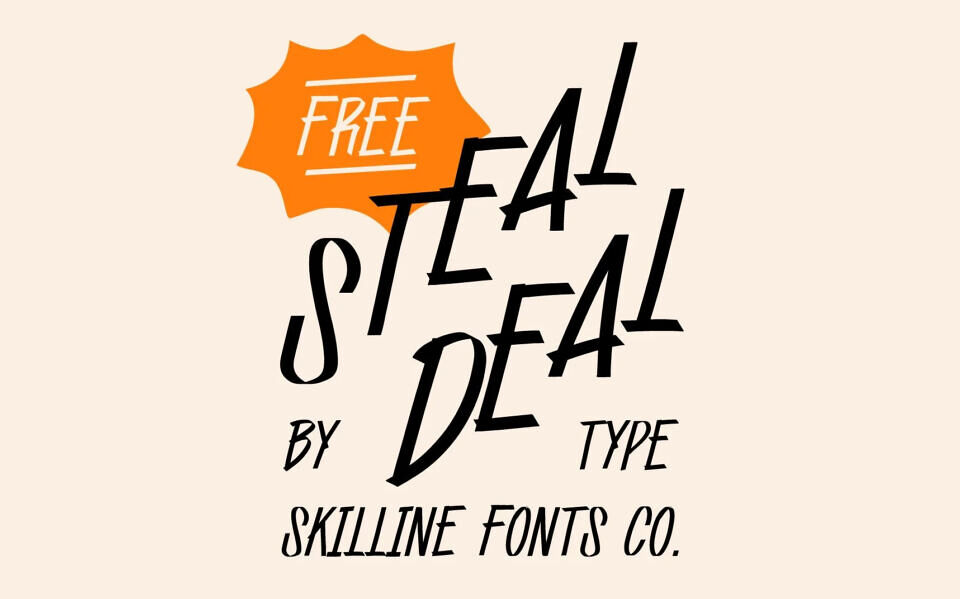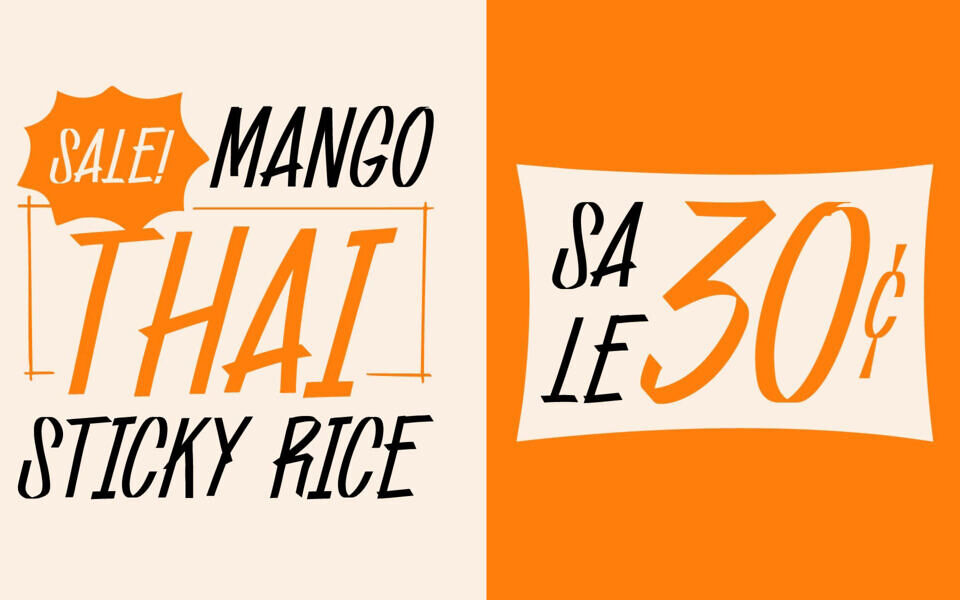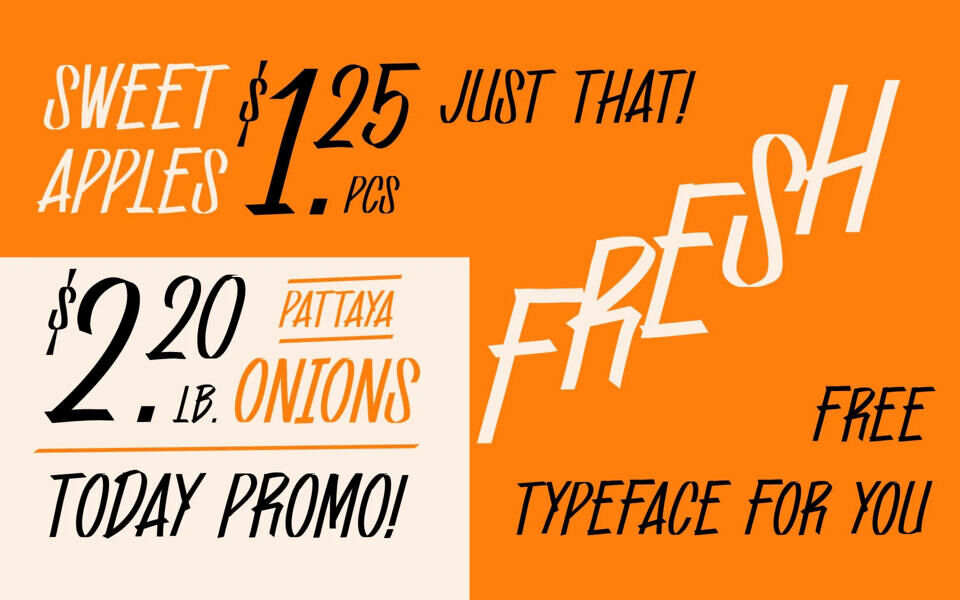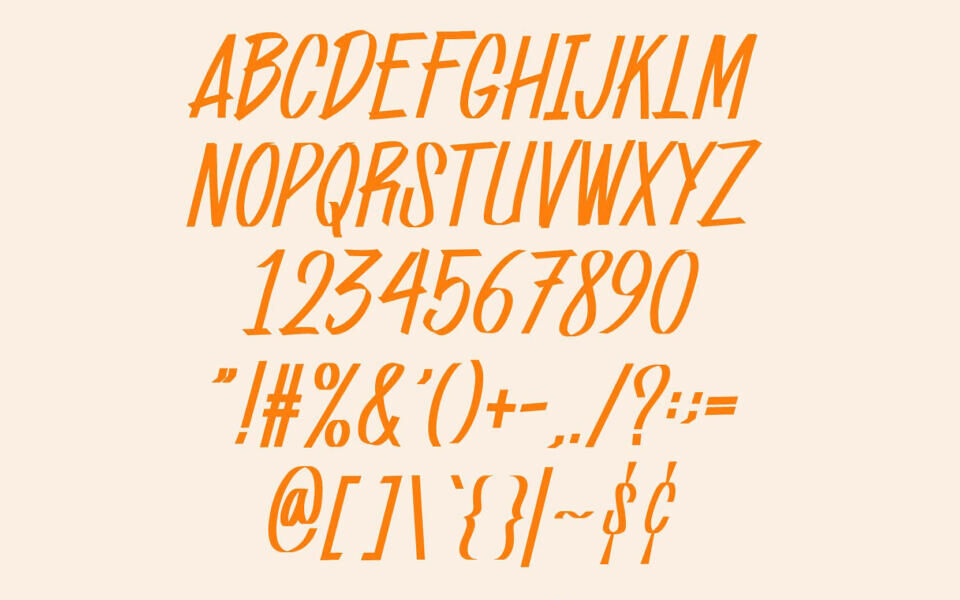
SFC Steal Deal is inspired by the discount fonts commonly seen in real-life marketplaces. It’s the kind of typeface you encounter almost every day, often without noticing it. Simple, familiar, and instantly recognizable — yes, that font.